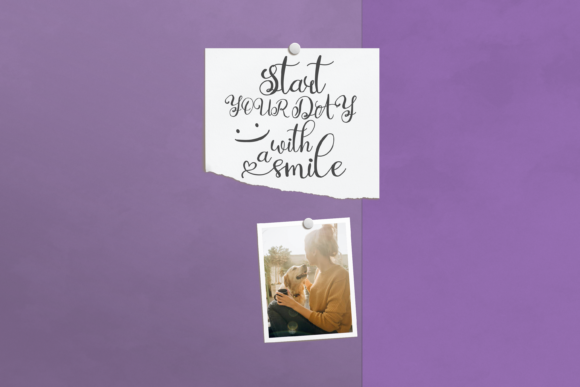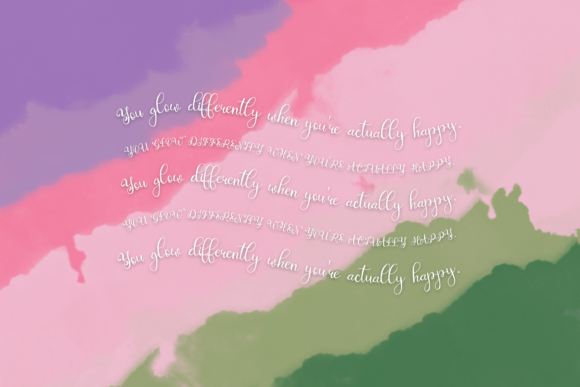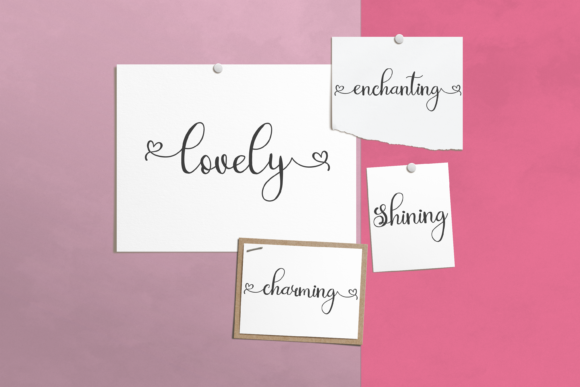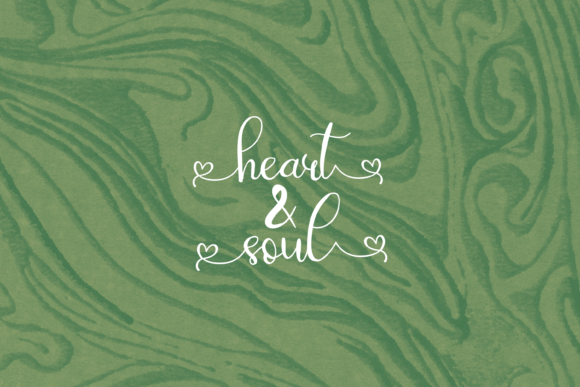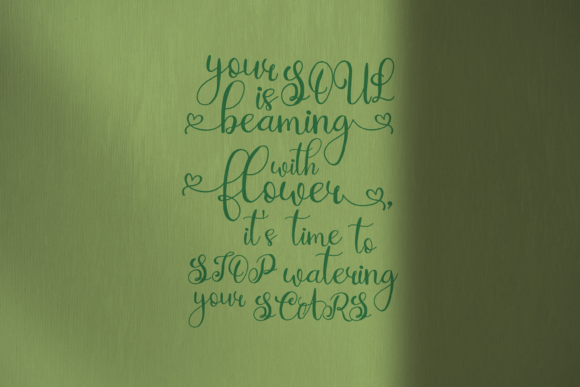
Introduction to Heart Beaming Font Font
Fonts play a crucial role in design, and the Heart Beaming Font font is a typeface that brings both character and versatility to any project. Whether you’re working on a branding project, a website, or a print design, the Heart Beaming Font font offers a unique style that can elevate your work.
Heart Beaming is a sweet and beautiful handwritten script font.
Get inspired by its incredibly elegant feel, and use it to turn any design project into a standout Heart Beaming is PUA encoded which means you can access all of the glyphs and swashes with ease.
Key Features of Heart Beaming Font Font
Why Choose Heart Beaming Font Font?
The Heart Beaming Font font is more than just a typeface – it’s a design tool that helps you communicate your message with style and clarity. Its unique character set and versatile design make it suitable for a wide range of applications, from elegant invitations to bold headlines.
With its carefully crafted letterforms and balanced proportions, the Heart Beaming Font font ensures readability and visual appeal across all mediums.
What makes Heart Beaming Font font special?
The Heart Beaming Font font stands out with its unique design, exceptional readability, and versatility across various design applications.